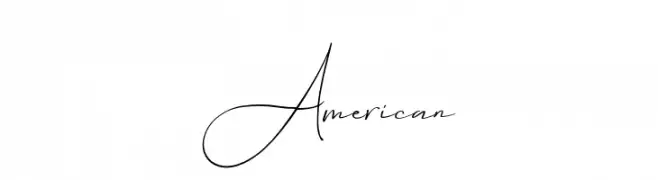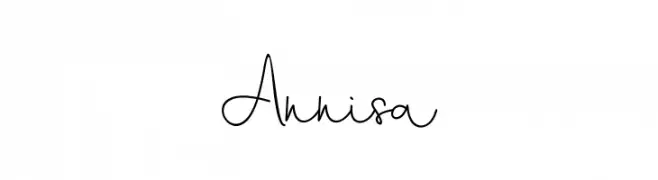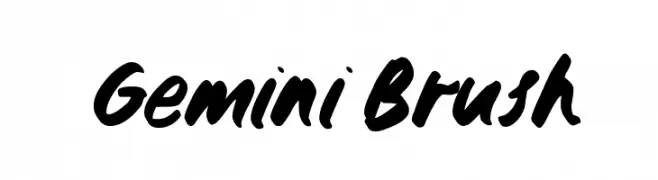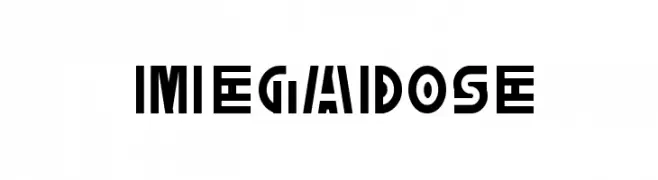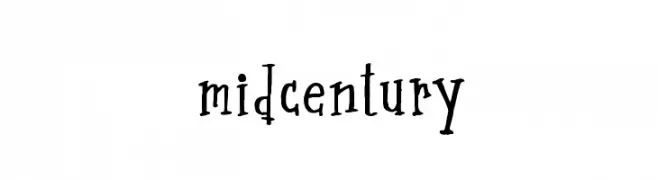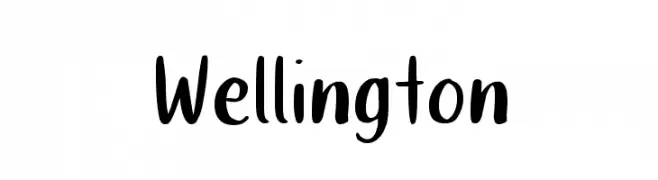
( Xerographer Fonts - Max Infeld - xerographer.blogspot.com )
A bold, geometric font with angular shapes and a modern, industrial feel.
( Xerographer Fonts - Max Infeld - xerographer.blogspot.com )
A playful, hand-drawn font with whimsical, uneven strokes.
( Xerographer Fonts - Max Infeld - xerographer.blogspot.com )
A bold, geometric font with a modern and futuristic style.
( Xerographer Fonts - Max Infeld - xerographer.blogspot.com )
A bold, futuristic font with geometric shapes and a dynamic design.
( Zansari - Zaffar Ansari - www.zansarifont.com )
A bold, dynamic brush-style font with fluid, expressive strokes.
( Zansari - Zaffar Ansari - www.zansarifont.com )
A playful, casual handwritten font with smooth, rounded characters.
( aldedesign - Alde Saputro - creativemarket.com/aldedesign?u=aldedesign )
An elegant script font with flowing lines and high contrast, perfect for sophisticated designs.
( aldedesign - Alde Saputro - creativemarket.com/aldedesign?u=aldedesign )
A graceful and flowing script font with elegant curves and loops.
( aldedesign - Alde Saputro - creativemarket.com/aldedesign?u=aldedesign )
An elegant, flowing script font with graceful curves and fluid strokes.
( aldedesign - Alde Saputro - creativemarket.com/aldedesign?u=aldedesign )
An elegant, flowing script font with ornate uppercase and fluid lowercase letters.